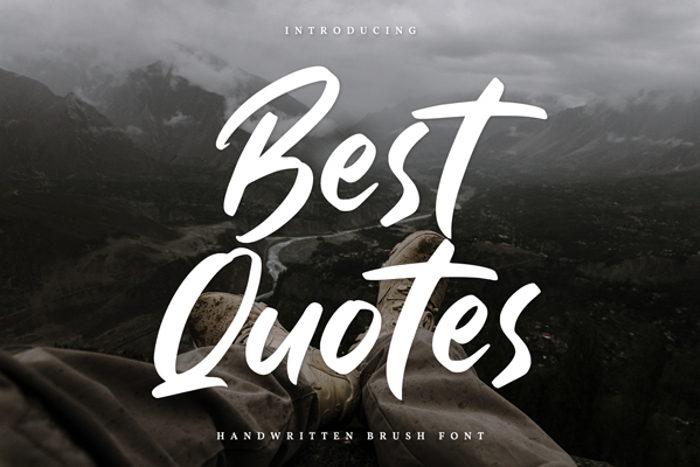
Best Quotes Font
Best Quotes is a classy handwritten font made for any professional project brandings. It is best applied for logos, brandings, and quotes. Every letter has a unique and beautiful touch.